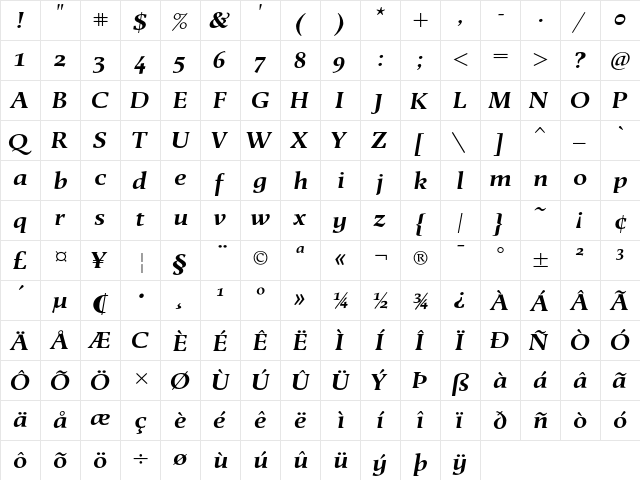
Berndal LT Std BoldItalic Regular Font Preview
Design Context for Berndal LT Std BoldItalic Typeface
Berndal LT Std BoldItalic takes a measured approach to typography — its balanced proportions and neutral character make it a reliable workhorse for both digital and print work. The dynamic lean of this cut emphasises speed and emphasis in any layout. The heavy weight commands attention and anchors typographic hierarchies.
Pro Tip: Try Berndal LT Std BoldItalic for annotation and caption copy alongside an upright companion — the contrast in angle creates a dynamic but ordered typographic system.